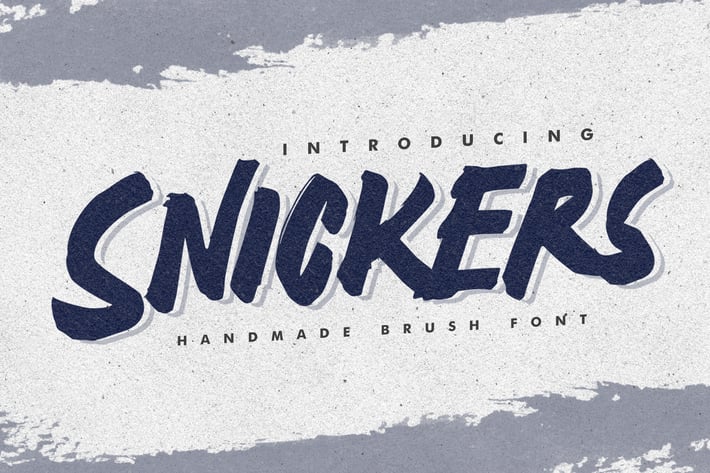
Snickers - Handmade Brush Font
Snickers is perfect to use for Logotype, Letterhead, Poster, Apparel Design, Label and etc.
The alternative characters were divided into several features such as Stylistic Alternates and Ligature.